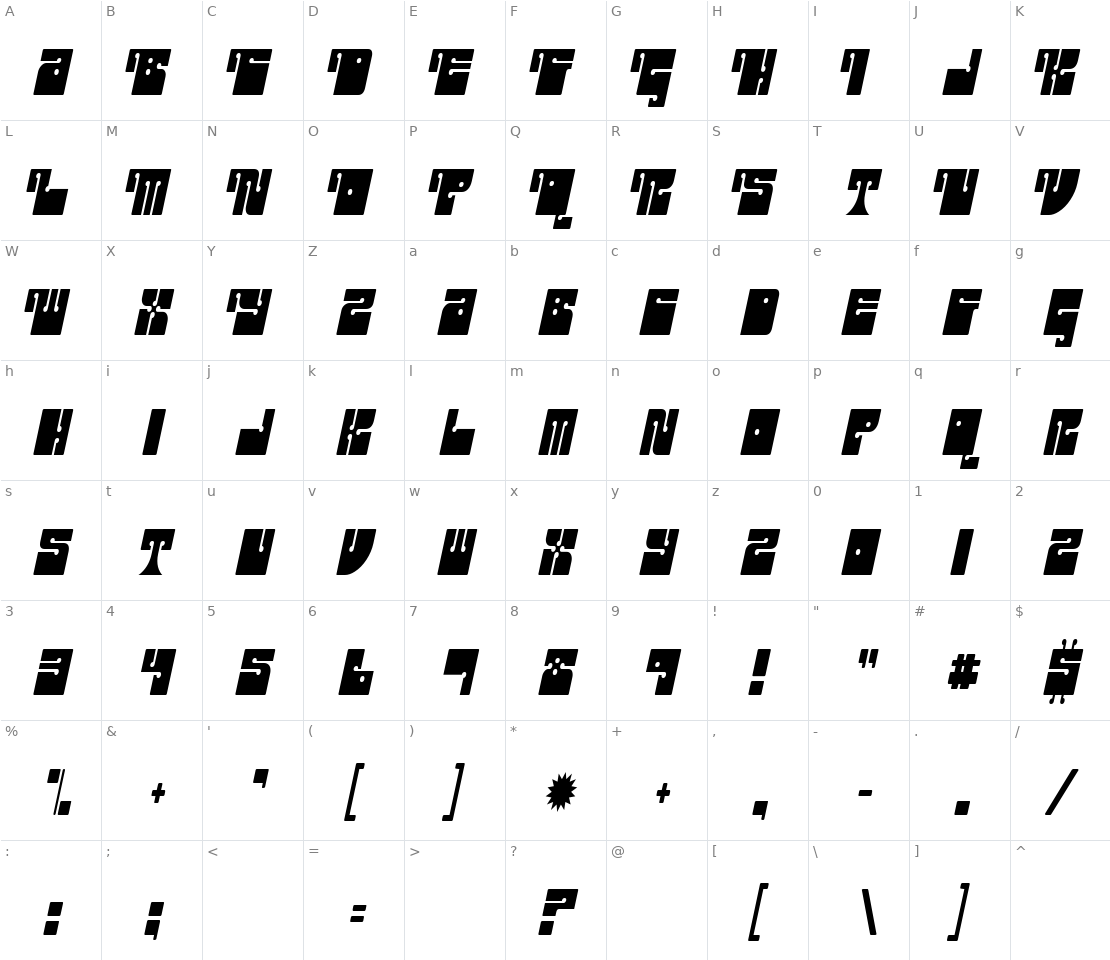
Outright Televism
Outright Televism is a heavy, condensed display face from Ray Larabie that splits the difference between retro and futuristic, with bold italic letterforms that feel like they belong on a 1960s vision of tomorrow. The tight spacing and forward lean give it real momentum, while the decorative details keep it from reading as purely functional. Built for headlines, posters, and title cards where you want something loud with a retrofuturist streak.